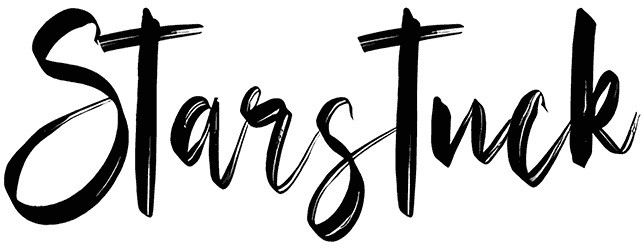
Starstuck Font
When you use a cool brush font like this item, the first impact of your design will be memorable because your words will be captivating. Starstuck font has casual and smooth lettering with a natural mood that will be perfect for many modern projects. Adorn a skateboard, t-shirt, or anything else with this script font and highlight your creative talent.